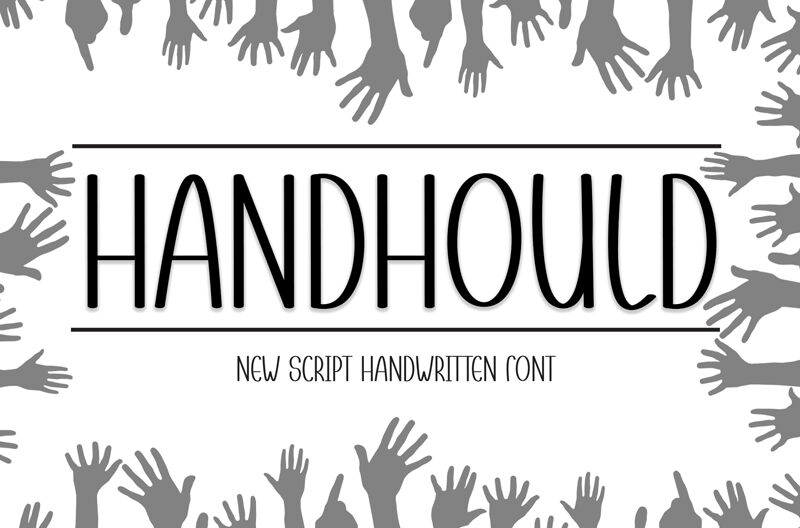
Handhould font designed by Creatype Designer is a handwritten font that has a casual and informal appeal. It is characterized by a bubbly, friendly, and approachable appearance fit for modern-day designs. It is handcrafted uniquely in each letter to deliver a consistent and harmonious look in the words and sentences that are created with it.
This is a free font that can be put to its ultimate use by students, designers, advertisers, or other professionals. This humanistic type of font can add a fun, personal, and human touch to any text. Get creative with it by using it for flyers, posters, invitations, print and digital ads, blog titles, and branded products.
This font showcases a classy calligraphic influence while maintaining a contemporary and fresh essence. Its versatility makes it suitable for a variety of creative endeavors, including letterheads, titles, and stationery.